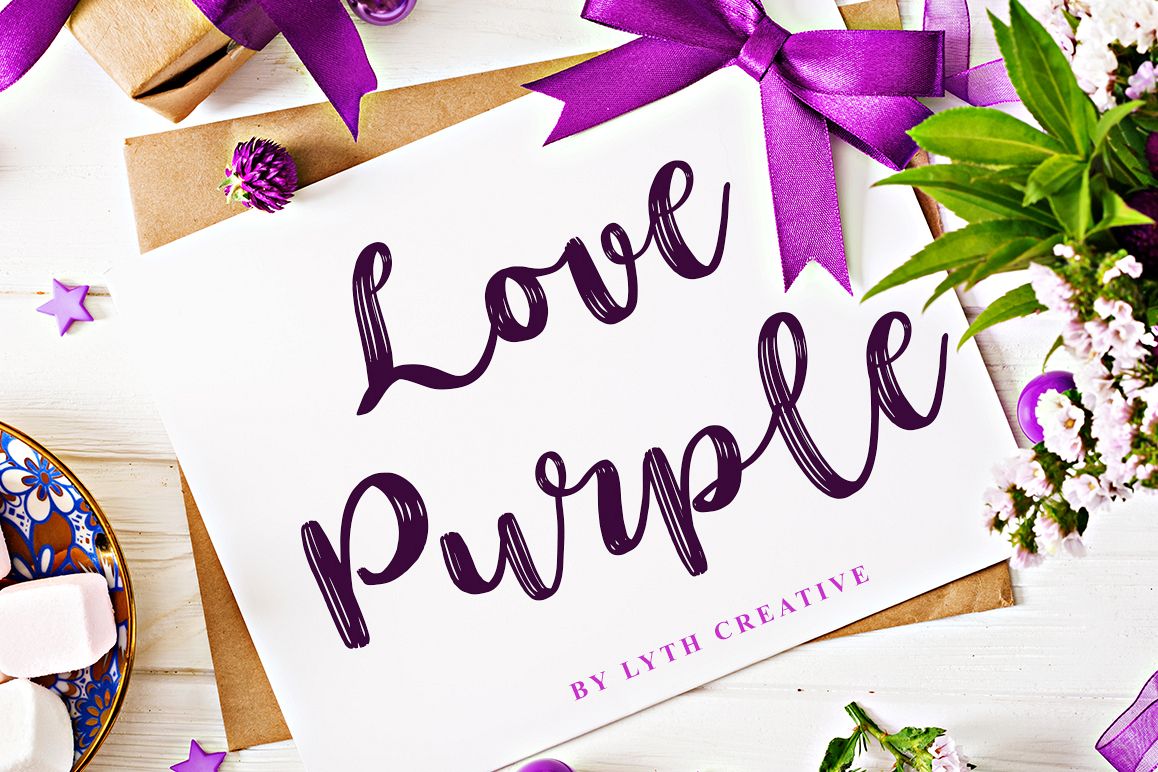
love purple
LovePurple
Love Purple is an incredibly lovely and sweet handwritten font with a magical twist. Use it to turn any design project into a standout!
It will make you unique touch on any creative project like logos & branding, web designs, social media posts, advertisements & product designs, etc.